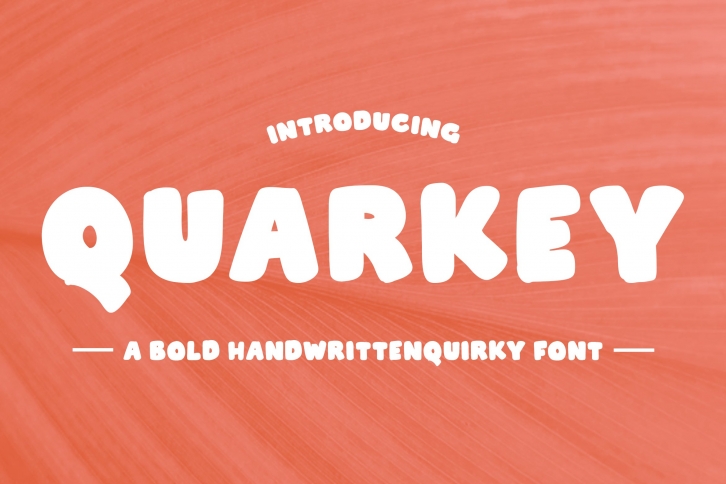
Quarkey is a beautiful font that was designed by Colative. It's a great choice for designers and creatives who need such a font. It was released on April 2, 2021 and the file size is 17.12 MB. Quarkey may give a more youthful, expressive and casual look to your project. It is a very beautiful, refined, elegant, and high-quality font.